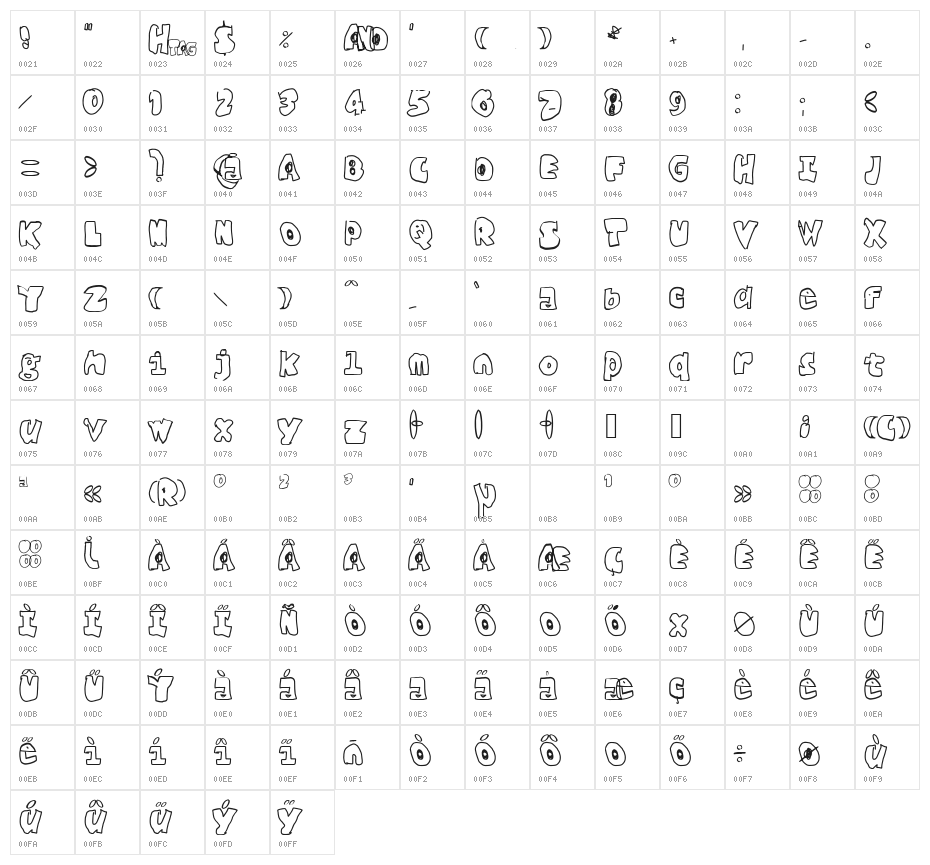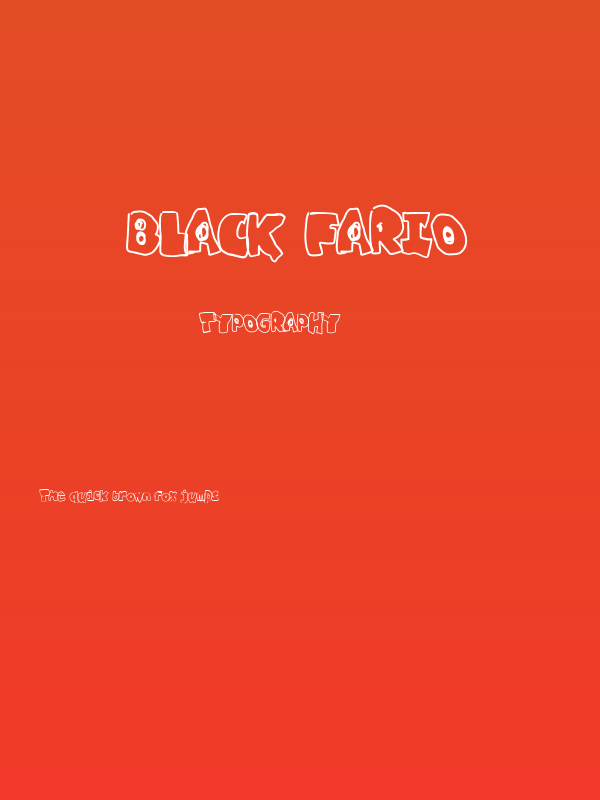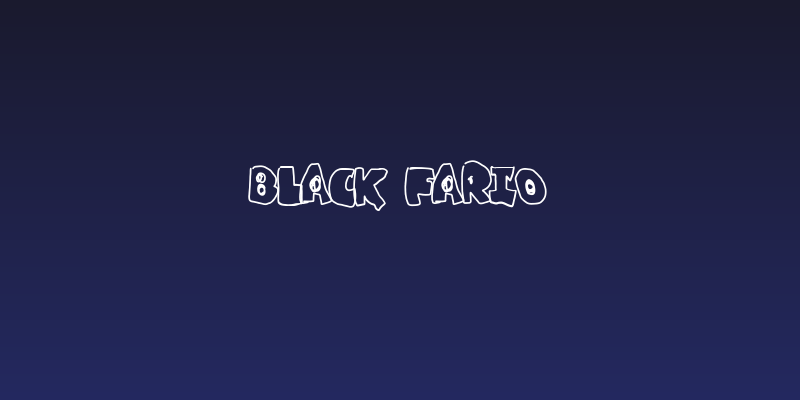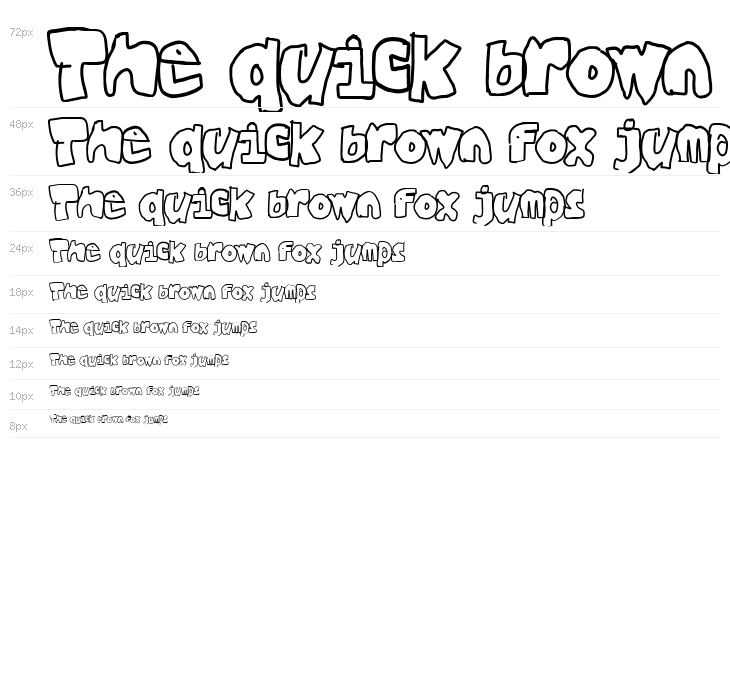
Black Fario Font
Black Fario Description
This font features a playful and bold design with a hand-drawn aesthetic. The characters are outlined with a thick, uneven stroke, giving them a cartoonish and whimsical appearance. The letters are slightly irregular in shape, adding to the informal and fun vibe. The numbers and special characters maintain the same style, ensuring consistency throughout. This font is highly decorative, making it suitable for creative and informal projects where a casual and artistic touch is desired.
| Overall Style | Whimsical and playful |
| Proposed Projects | Ideal for children's books, comic strips, playful branding, and creative posters. |